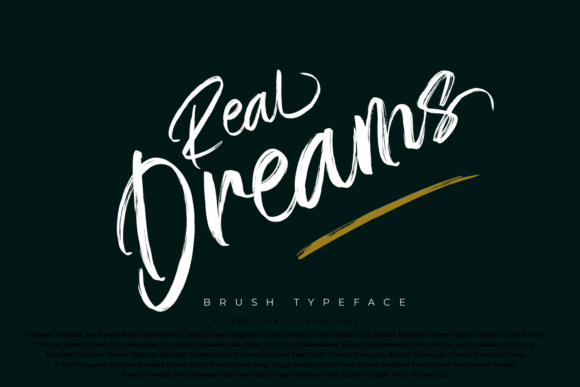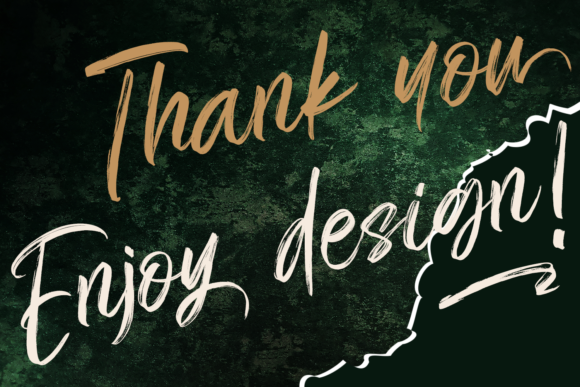
About Real Dreams Font
Real Dreams is a stylish and brushed handwritten font. This gentle font will look gorgeous on a variety of design ideas. It will add a joyful and romantic touch to each of your projects! Real Dreams is PUA encoded which means you can access all of the glyphs and swashes with ease!